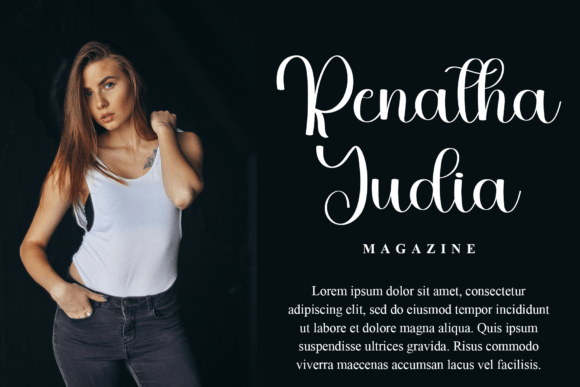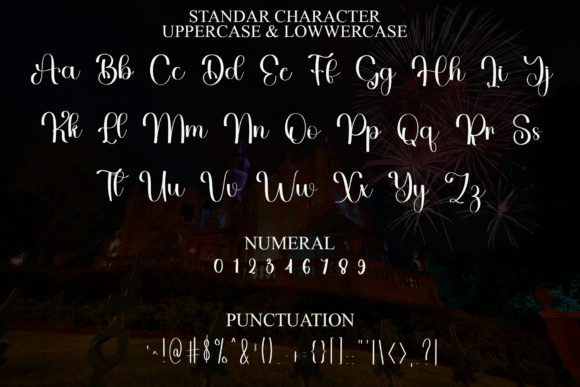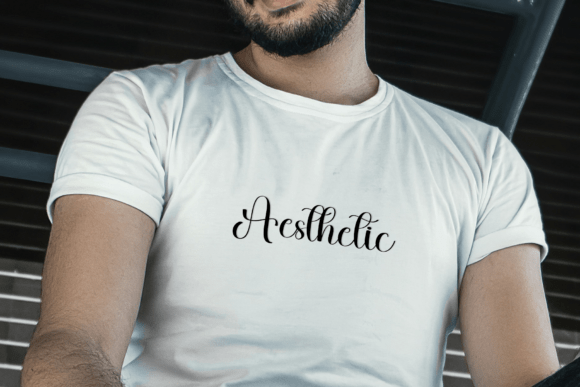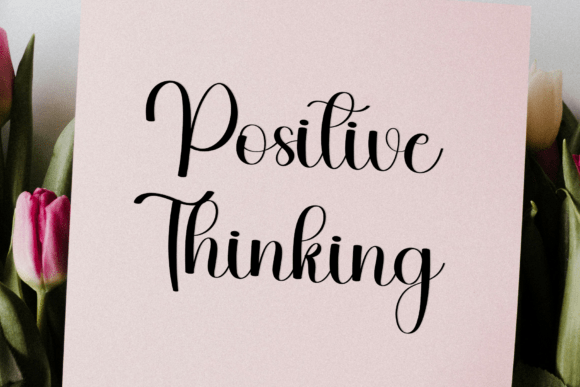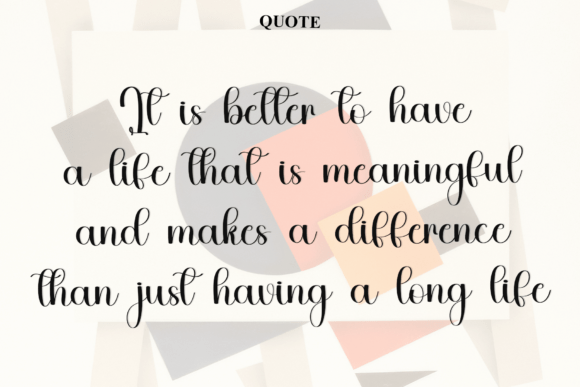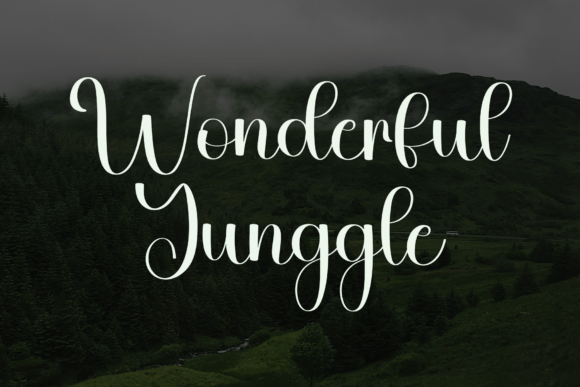
Introduction to Jungle Highland Font
Jungle Highland is a casual and creative font that exudes warmth and friendliness.
Key Features of Jungle Highland Font
Why Choose Jungle Highland Font?
Jungle Highland Font offers exceptional quality and versatility, making it a valuable addition to your design toolkit. Whether you’re creating for personal projects or commercial use, Jungle Highland Font delivers professional results.